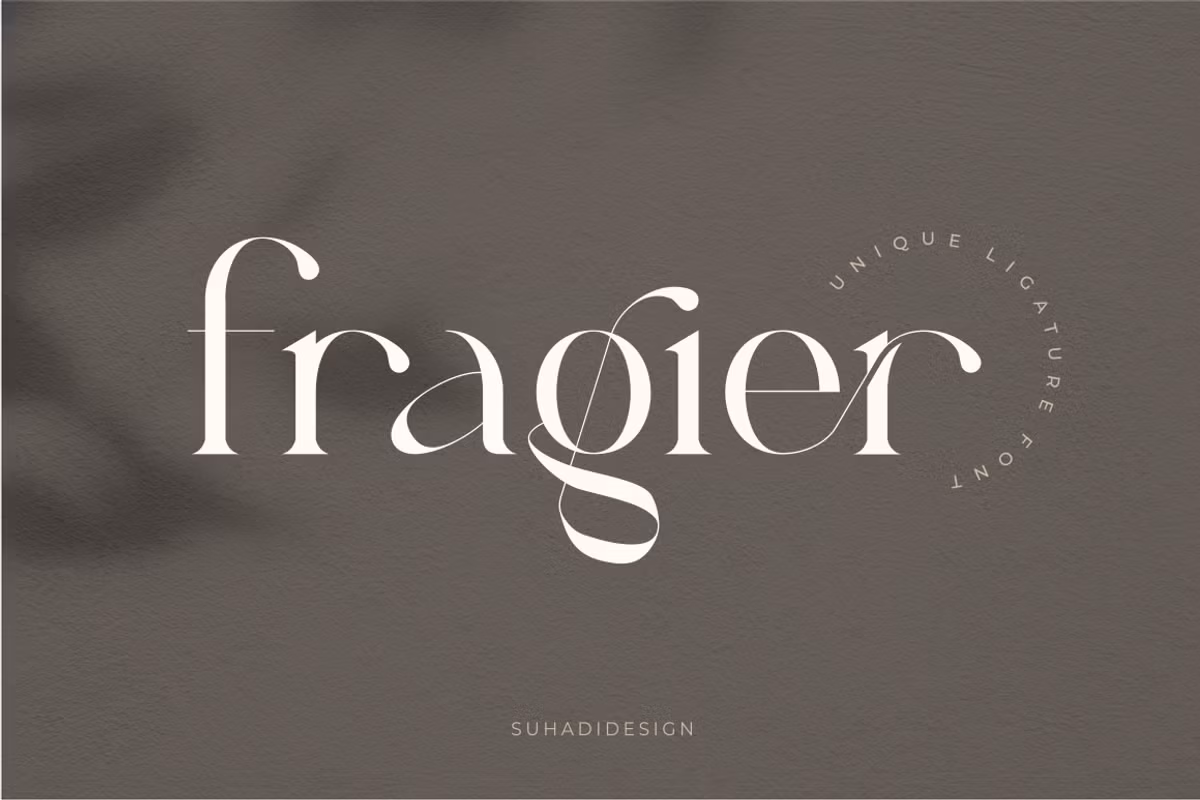
Fragier unique ligature serif font Free Download
Fragier Unique Ligature Serif Font Free Download
Fragier Unique Ligature Serif Font Free Download is a sophisticated and high-fashion serif typeface that blends modern elegance with artistic letterform design. With sleek curves, sharp serifs, and an abundance of stylish ligatures, Fragier is perfect for luxury branding, magazine editorials, packaging, logos, and wedding stationery.
Crafted to elevate your typography, Fragier Unique Ligature Serif Font Free Download includes a range of beautiful alternates and ligatures that allow for customized, couture-level layouts. Whether you're creating a bold headline or a refined logo, this font offers both personality and polish.